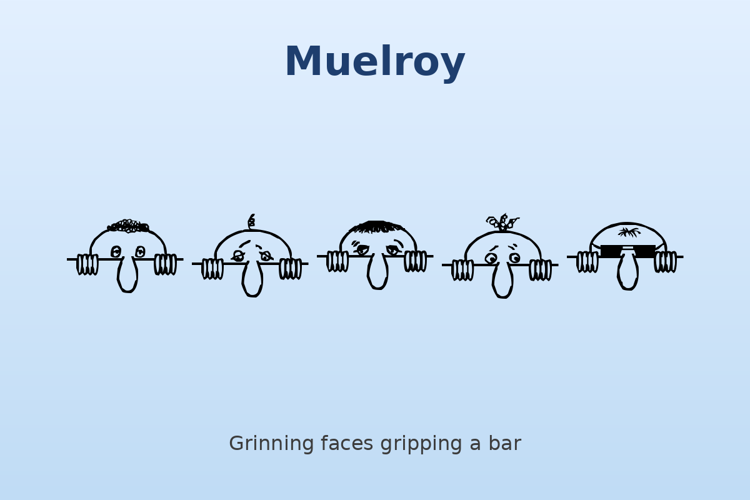
Muelroy Font
Grinning cartoon faces grip a bar with both hands, each one sporting a letter — a playful alphabet of peek-a-boo faces for kids' crafts and goofy designs. Letters with digits 1–5; no punctuation. Emailware: free for private use. Commercial use requires her written permission.